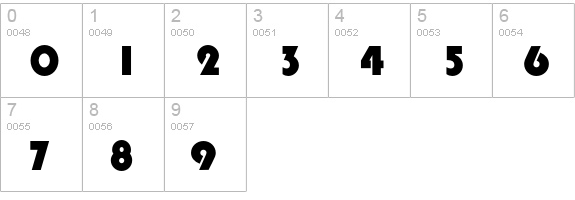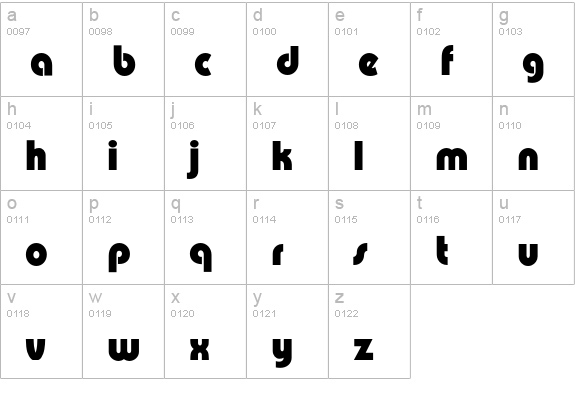
Fontane Font Details
Introducing Fontane, a stylish and elegant font that exudes sophistication and charm. With its sleek lines and classic design, Fontane is the perfect choice for adding a touch of class to your projects. This versatile font can be used for a variety of purposes, from branding to invitations to editorial design. The best part? Fontane is completely free to download at FontsMarket.com. That's right - you can elevate your designs with this exquisite font without spending a dime. Don't miss out on the opportunity to enhance your creative projects with Fontane's timeless beauty. Download it today and let your creativity shine with this remarkable typeface.